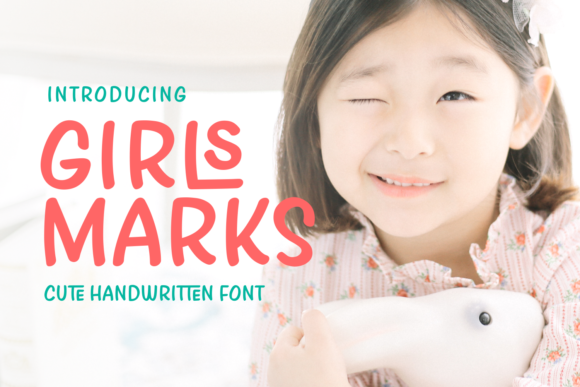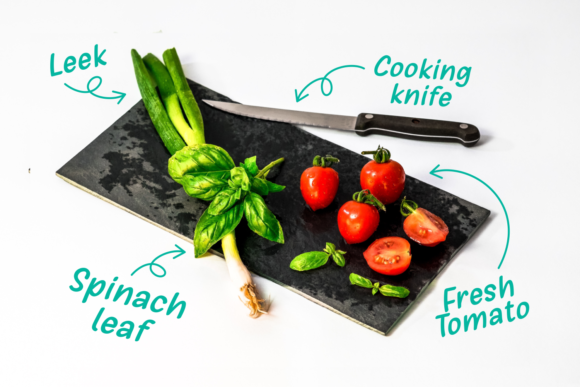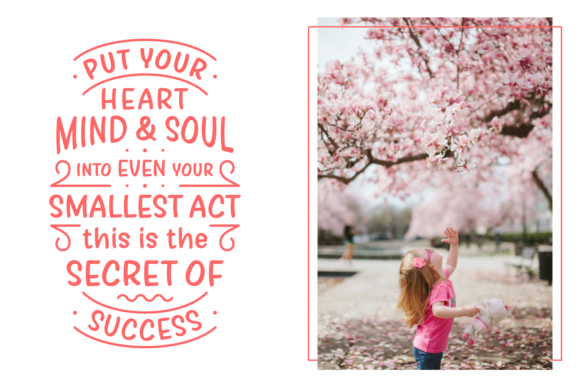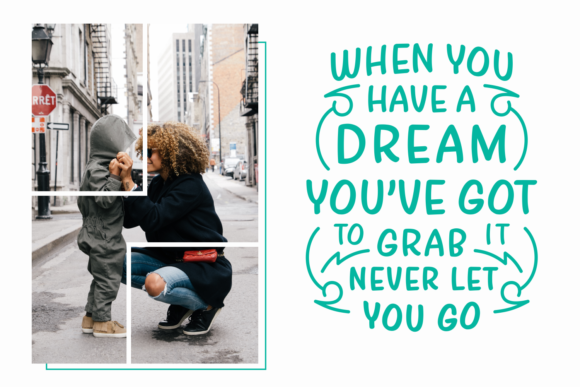
Girls Marks Font
About Girls Marks Font
Girls Marks is a cute, handwritten font with a smooth look and feel. Girls Marks comes in two, beautiful variations which gives you lots of options to play with and create the perfect design!